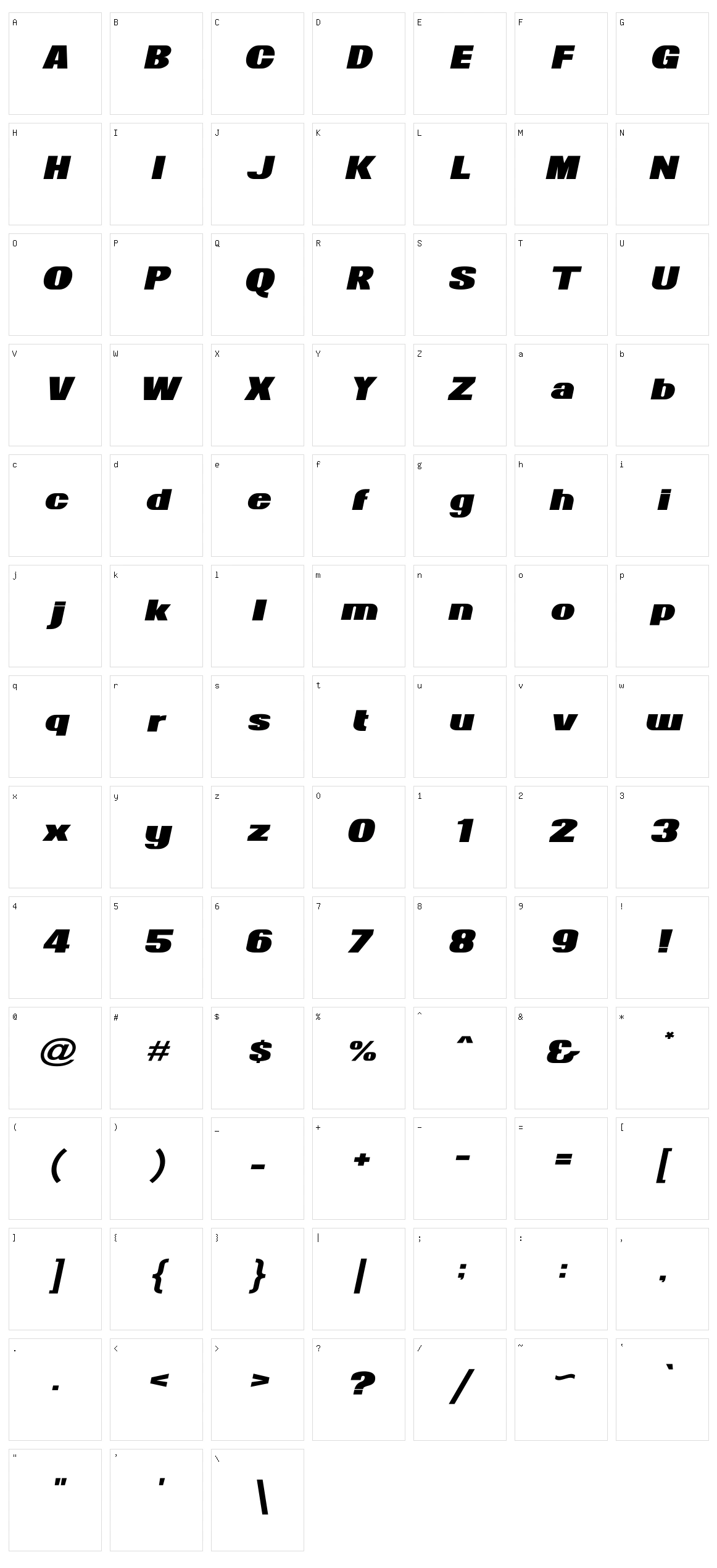
Font: News of the World (Regular, Italic, Wide, Wide Italic)
EXTRA!! Read all about it! Thanks for having a look at my latest typeface; News of the World. It features broad, strong, characters that appear to have come right off a magazine, sports
blog, or newspaper. This style demands emphasis and is sure to grab your audience's attention. 4 different styles give your works some variety. Try Regular in all caps for an eye catching
headline or wide italic for a company logo. The next time you're thinking of using Impact give this font a try.
News of the World contains basic latin, extended latin, various ligatures, Eastern European accents, kerning, and full punctuation. You can produce the globe on the regular version by keying the